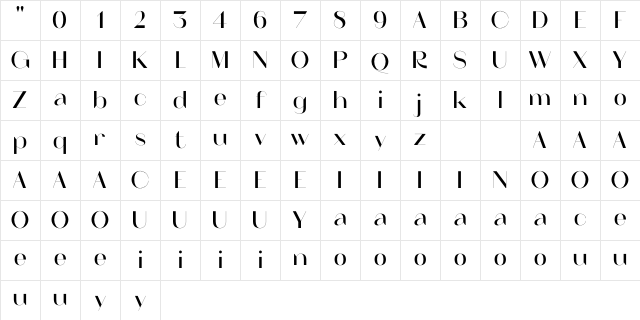
Arthead FREE Regular
Designer: Headfonts
Design Context for Arthead FREE
Arthead FREE is a composed and adaptable typeface that performs quietly and consistently across a wide range of design contexts.